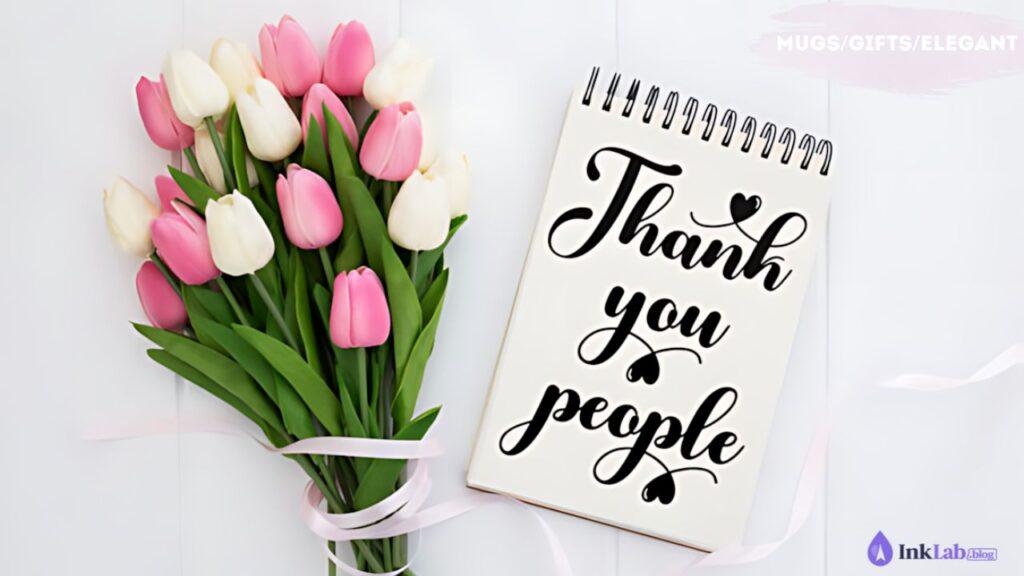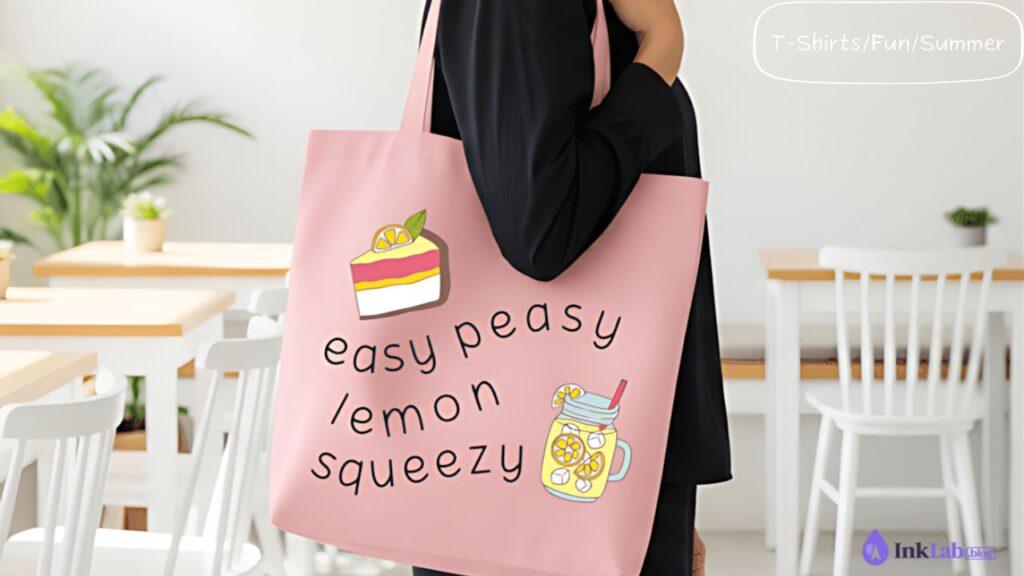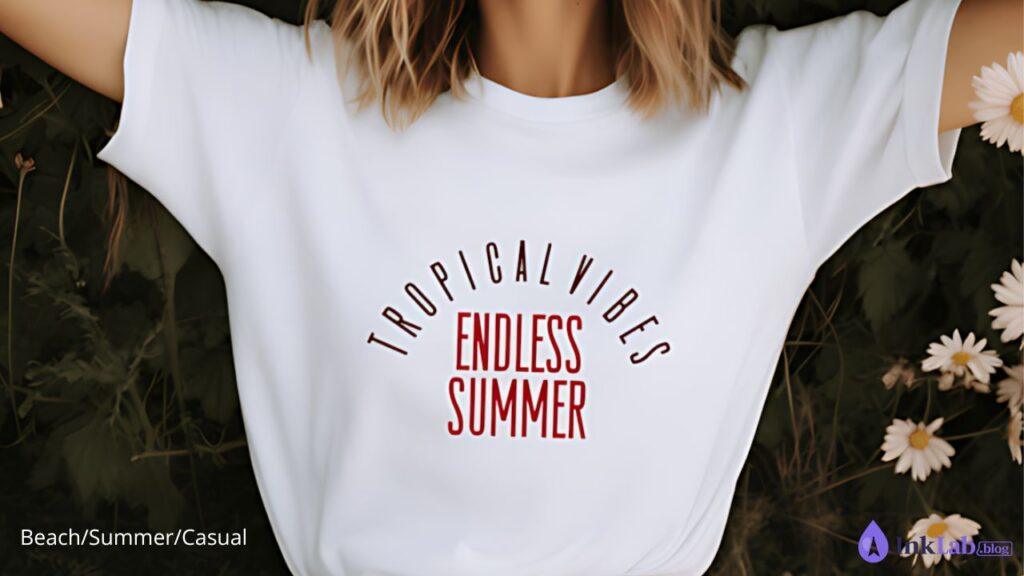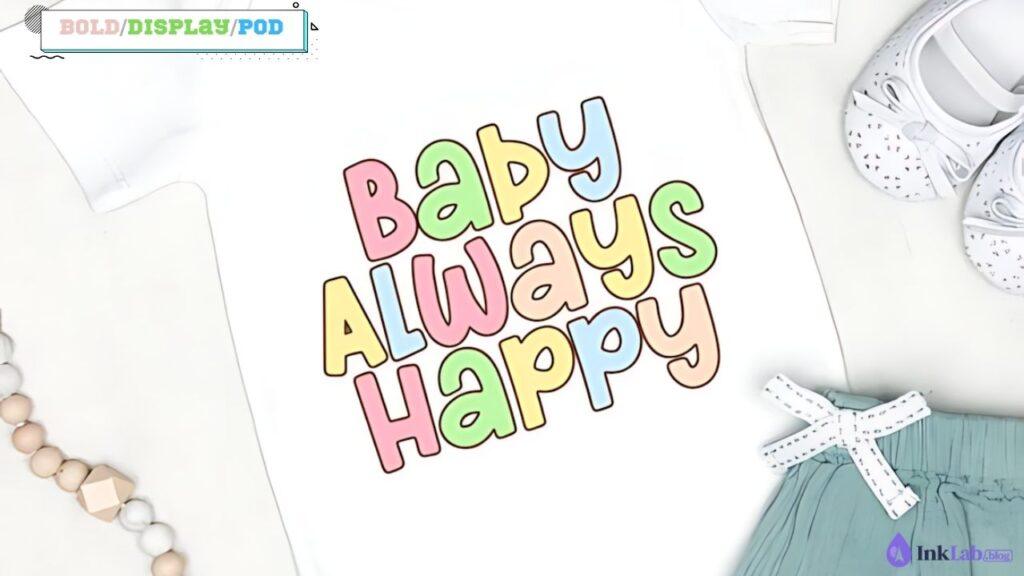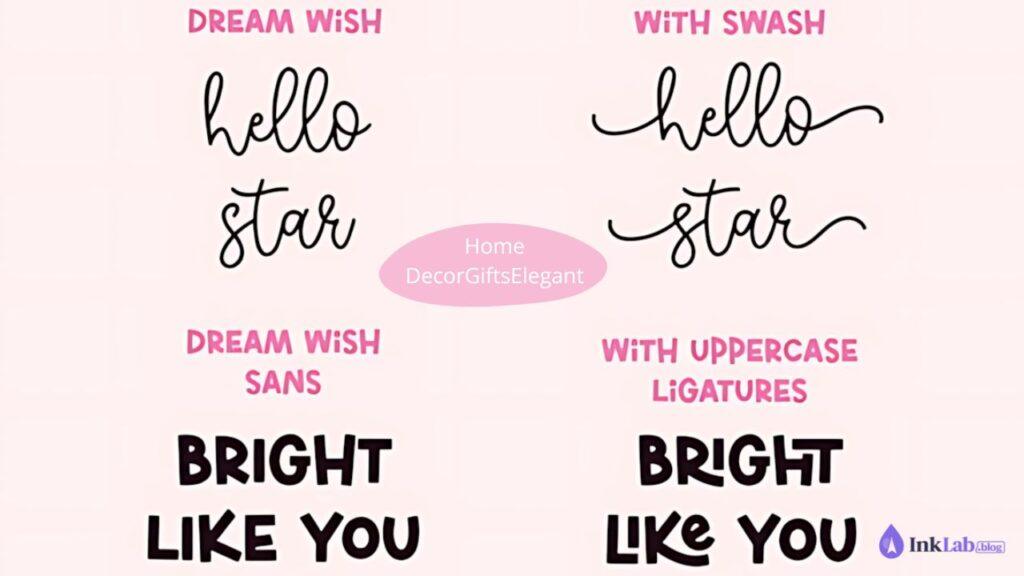
The best fonts for sublimation printing are bold enough to hold vibrant color, clean enough to transfer without blurring, and eye-catching enough to sell. Whether you’re designing for mugs, tumblers, shirts, or gifts — here are the top picks from Creative Fabrica, all with commercial license included.
What Makes a Good Font for Sublimation Printing?
Sublimation transfers color through heat — thin strokes and tiny details can blur or fade. The best sublimation fonts have:
- Bold, thick strokes — hold vibrant color without blurring on curved surfaces
- Clean letterforms — transfer sharply even on mugs and tumblers
- Consistent stroke width — avoid fonts where thick and thin strokes alternate dramatically
☕ Best Fonts for Sublimation Mugs & Tumblers
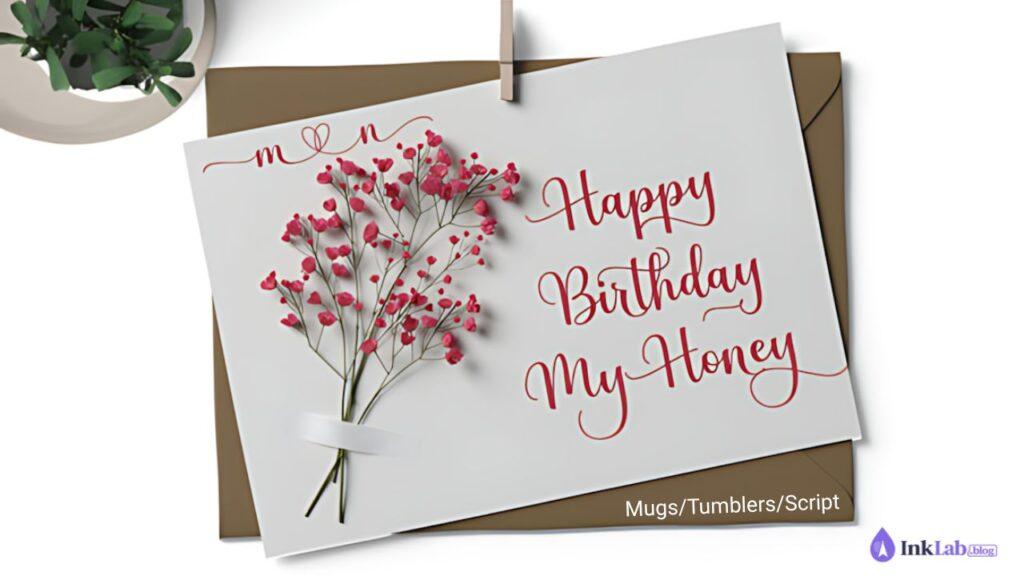
Hey Magnolia Font
Beautiful bold script with thick consistent strokes — transfers cleanly on mugs and tumblers without blurring. Perfect for personalized gifts, quotes, and name designs. One of the most popular sublimation script fonts on CF.
Kayla Font
Elegant script font with bold strokes that hold color beautifully on sublimation products. Great for wedding gifts, anniversary mugs, and premium personalized items. Looks stunning on both white and colored sublimation blanks.
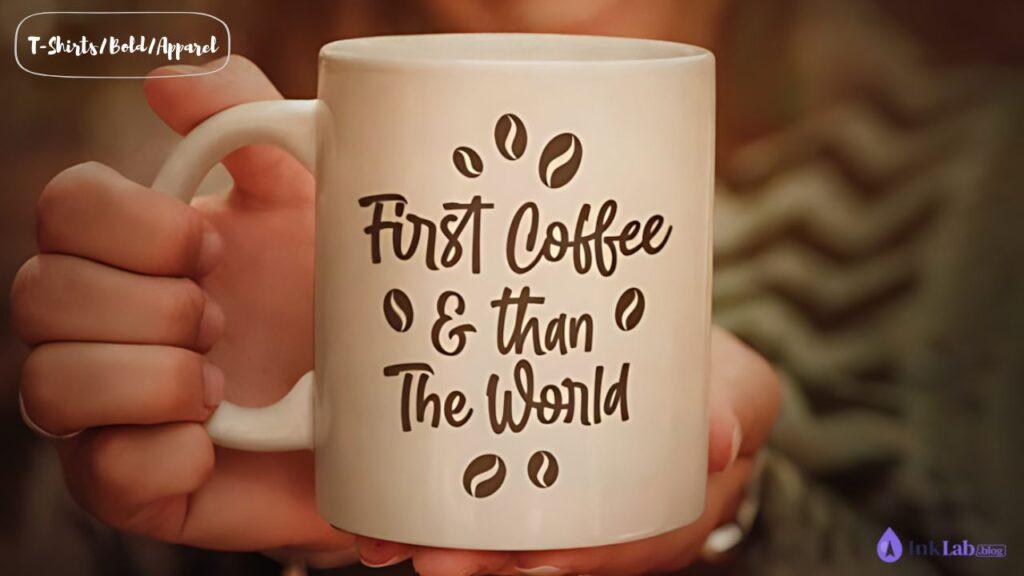
Outbreak Font
Bold display font with strong visual impact — transfers with maximum vibrancy on sublimation shirts and hoodies. Perfect for gym wear, statement tees, and streetwear-inspired apparel designs.
Perfect Lemonade Font
Playful bold font with a fun summer vibe — ideal for sublimation beach bags, summer shirts, and casual apparel. Thick strokes ensure clean transfer on polyester blanks.
Salty Beach Font
Casual beach-inspired font with bold strokes — perfect for sublimation tote bags, beach towels, water bottles, and summer apparel. Great for vacation-themed POD collections.
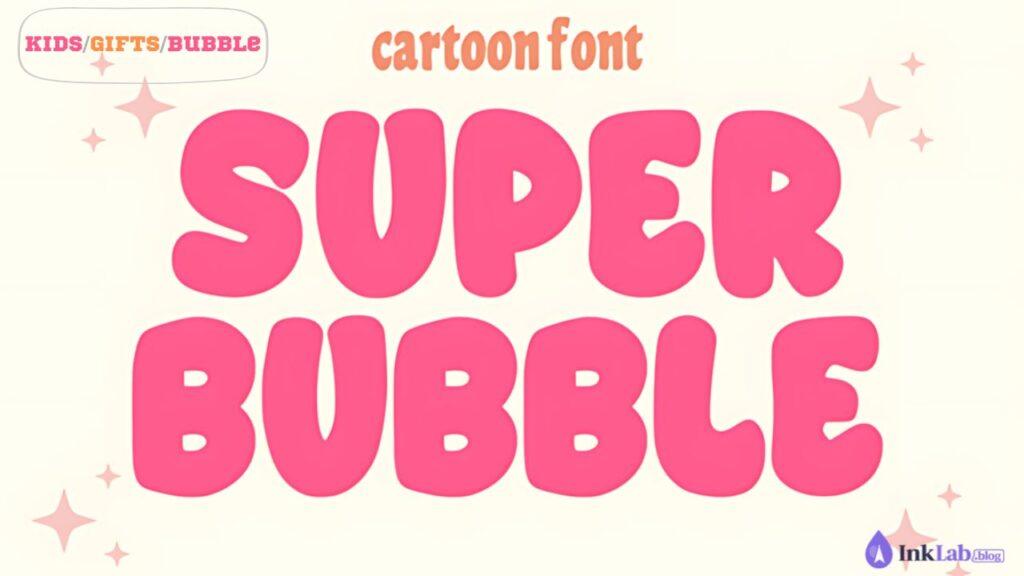
Super Bubble Font
Fun bubble letter font with thick rounded strokes — transfers beautifully on sublimation kids’ products, backpacks, water bottles, and lunch boxes. One of the safest fonts for sublimation on curved surfaces.
Thick Jungle Font
Ultra-bold display font with maximum stroke width — ideal for sublimation products where you need strong visual impact. Works great on pillows, canvas prints, and statement mugs.
Dream Wish Font
Elegant script font with bold strokes — perfect for sublimation pillows, canvas prints, and premium home decor. The thick letterforms transfer cleanly and look stunning on white sublimation blanks.
What fonts work best for sublimation on tumblers?
Bold scripts like Hey Magnolia and Kayla work best on tumblers — their thick strokes hold color on curved surfaces without blurring. Avoid thin scripts or hairline fonts.
Can I use thin script fonts for sublimation?
Thin scripts are risky — hairline strokes often blur during transfer, especially on curved products. If you use a script font, always choose a bold weight version.
What is the best font for sublimation on polyester shirts?
Bold sans-serif fonts like Outbreak and Thick Jungle work best on polyester shirts — their consistent stroke width transfers evenly on fabric. Avoid decorative or thin fonts for apparel.